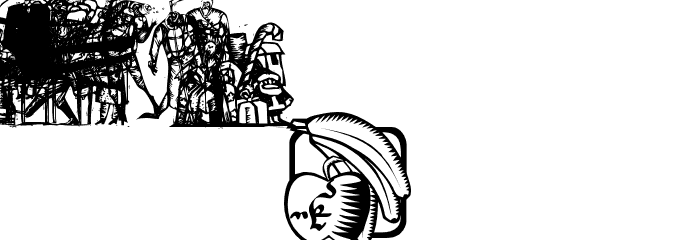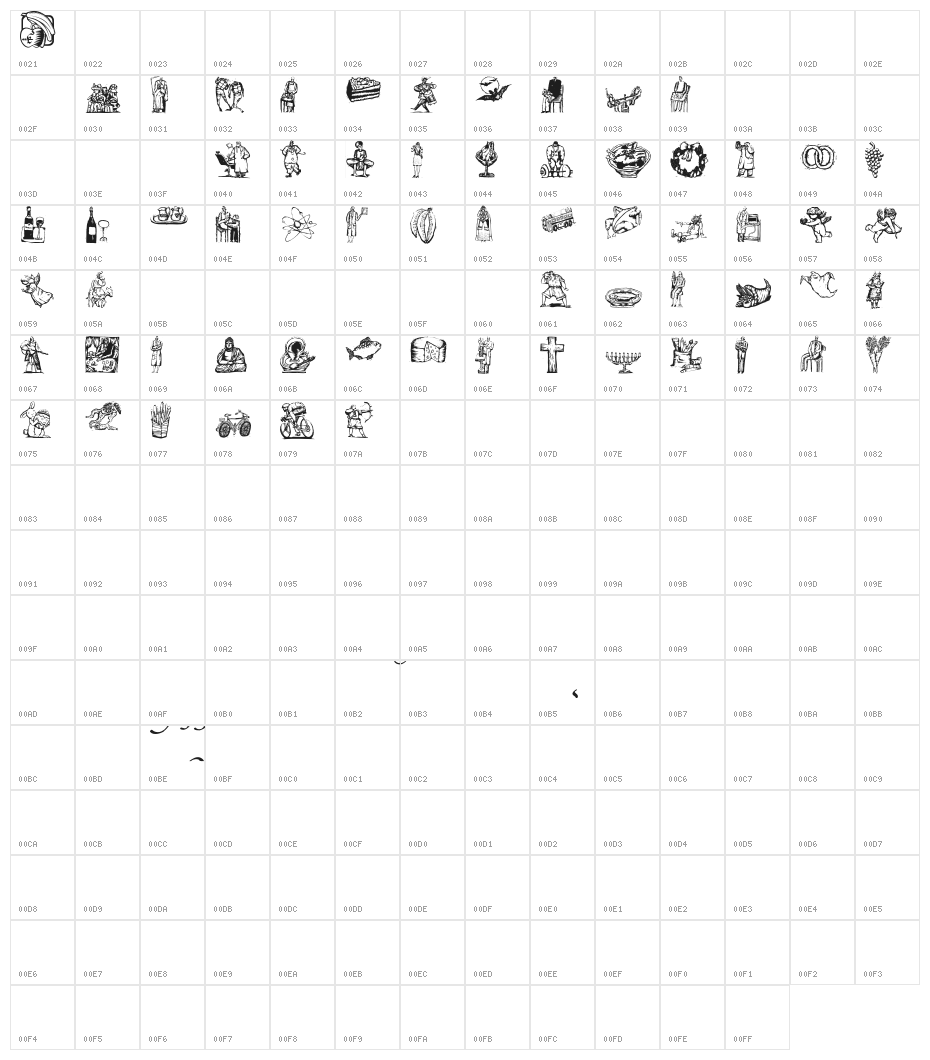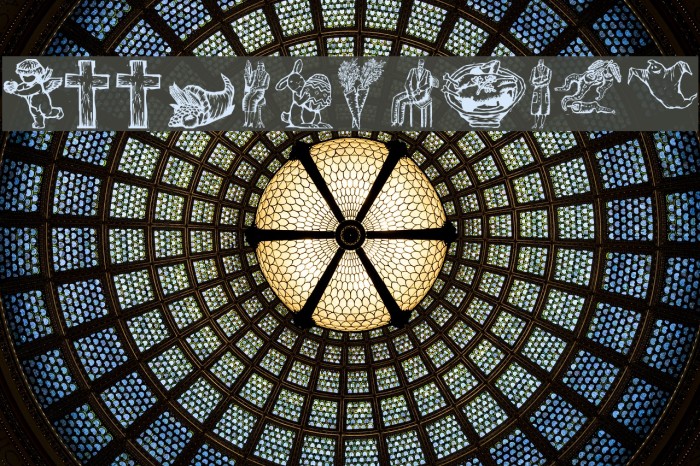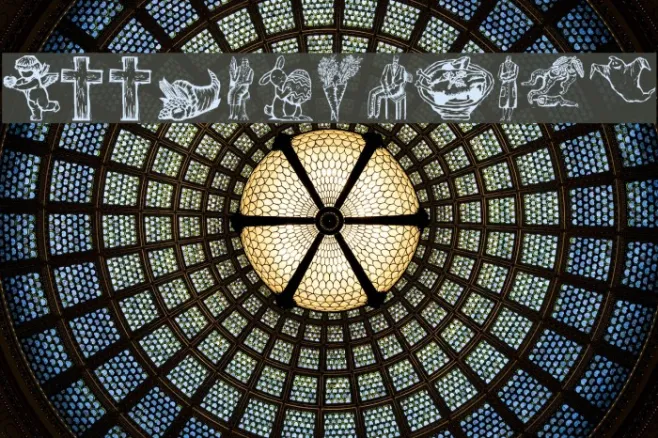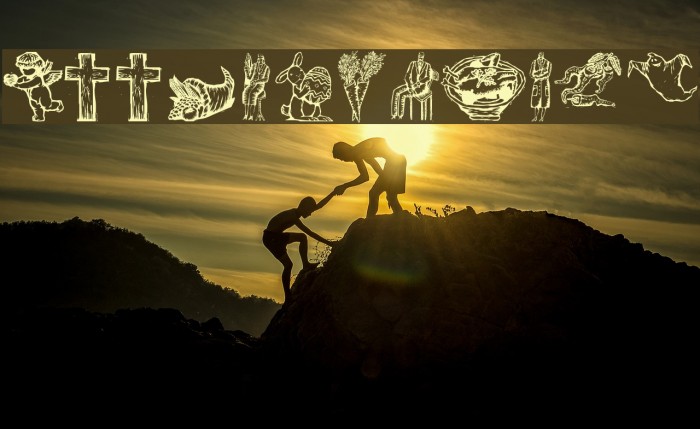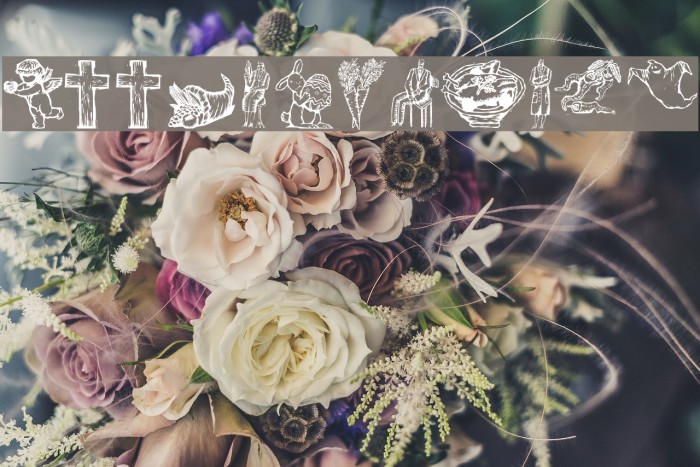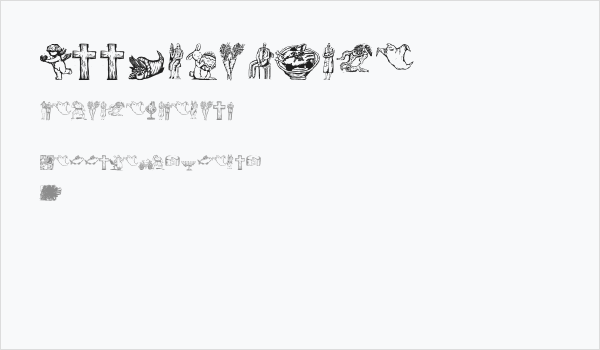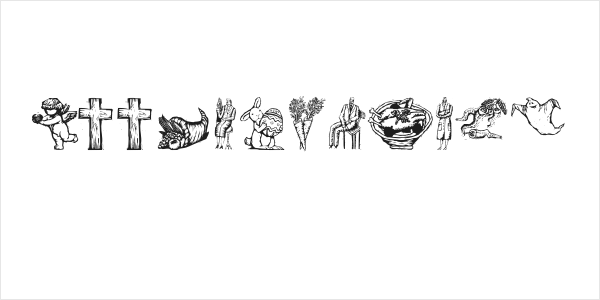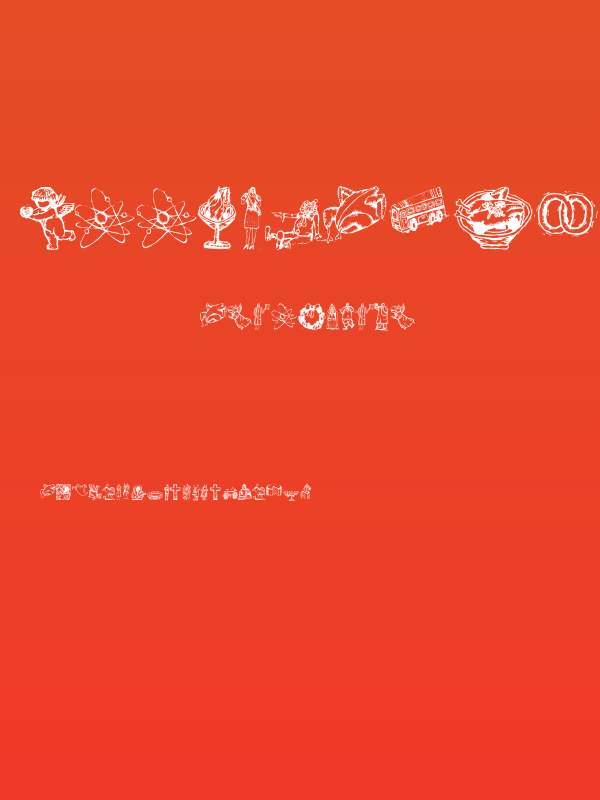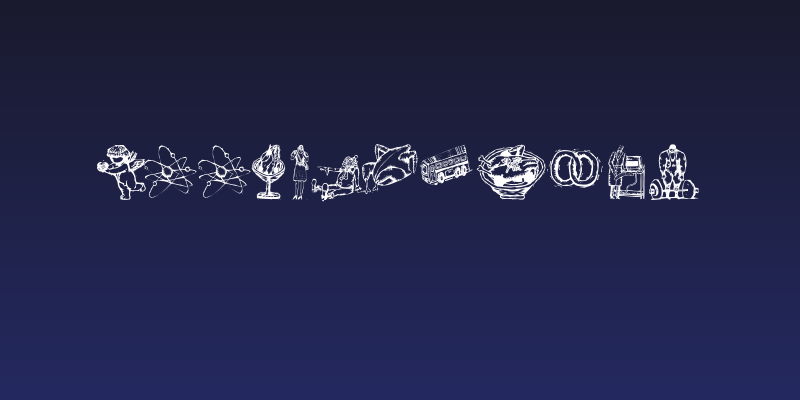
WoodcutsFive Font
WoodcutsFive Description
A highly decorative, pictorial dingbat font featuring detailed woodcut-style illustrations representing various objects, people, and scenes instead of traditional alphanumeric characters.
| Overall Style | Vintage, Decorative |
| Use Case | Illustrative elements, Themed graphics, Visual storytelling |
| Proposed Projects | Book illustrations, educational materials, themed posters, decorative borders, and creative design projects requiring vintage-style imagery. |